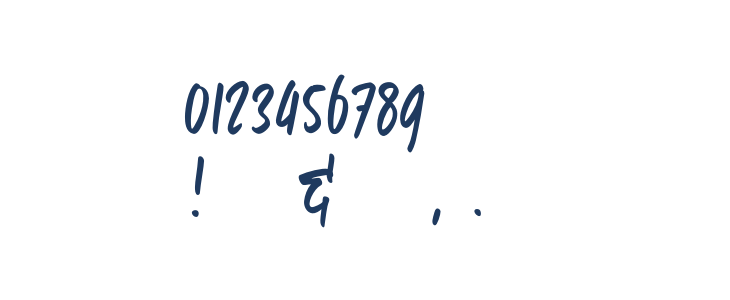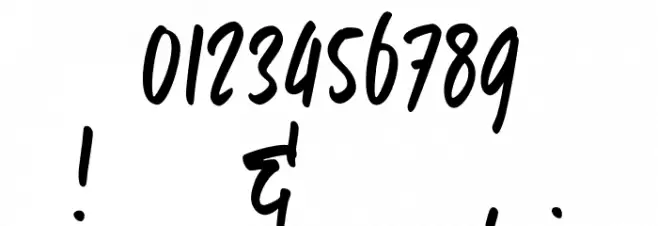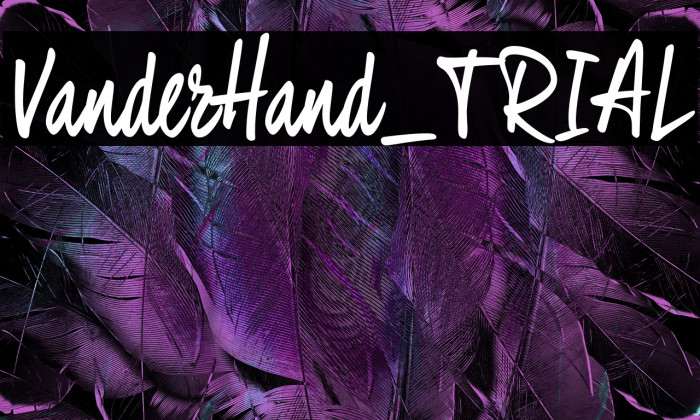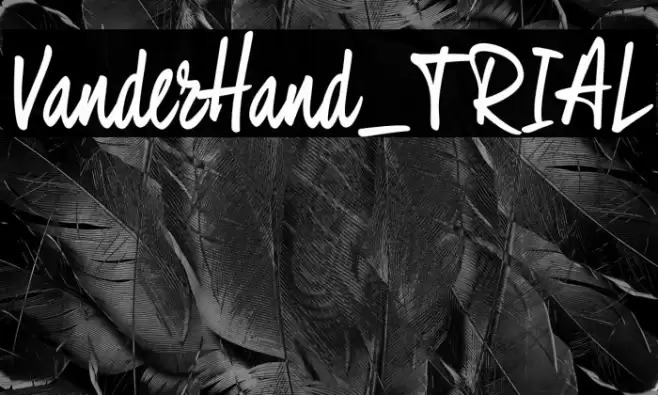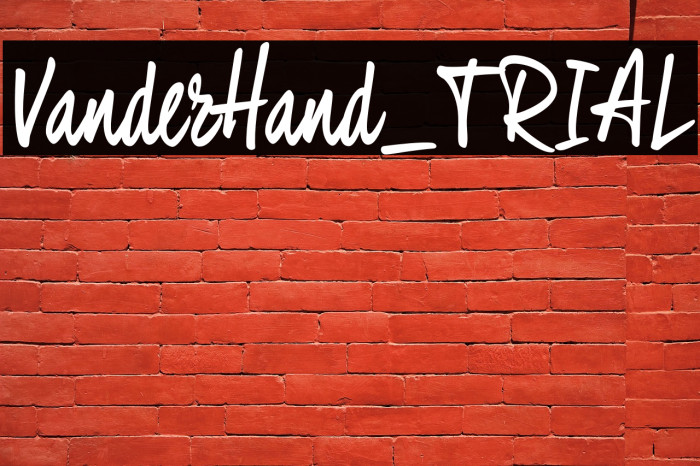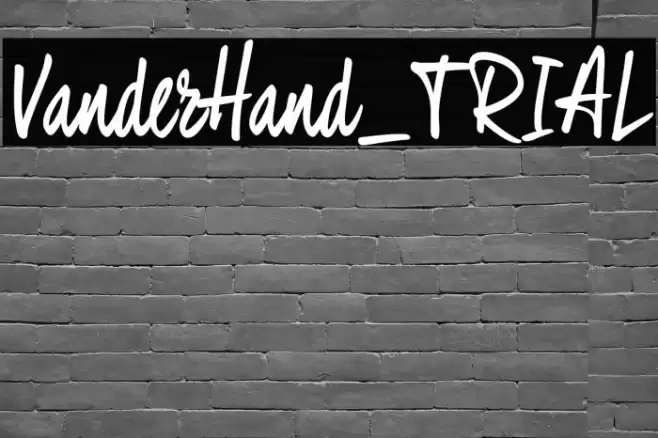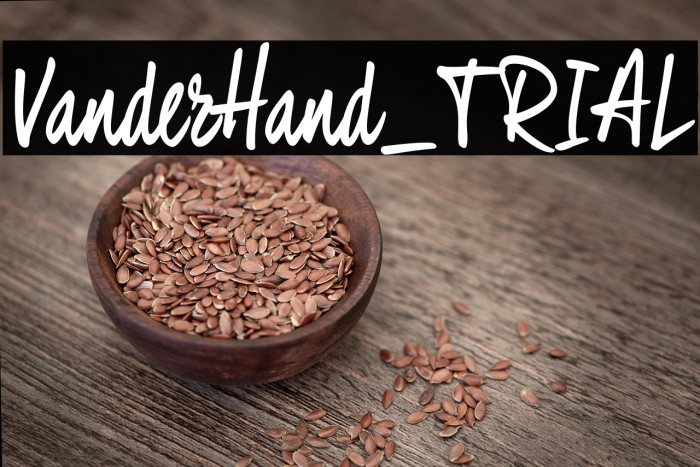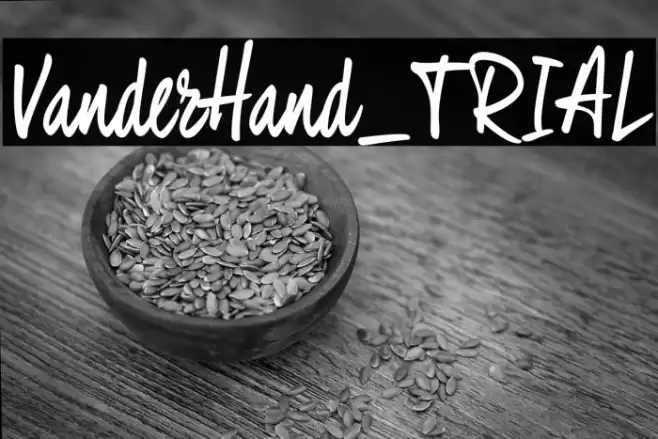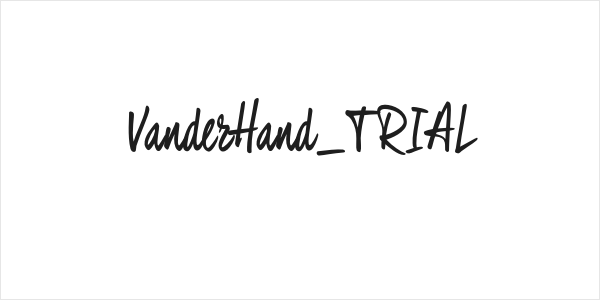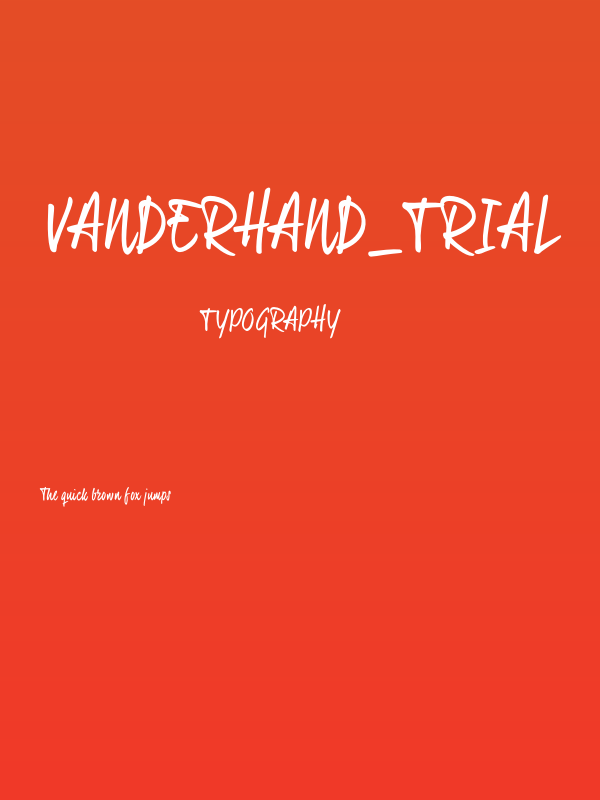
VanderHand_TRIAL Font
VanderHand_TRIAL Description
This font exudes a lively and dynamic handwritten style, characterized by its fluid and cursive strokes. The uppercase letters are bold and slightly slanted, giving a sense of movement and energy. The lowercase letters maintain a consistent flow, with some letters extending below the baseline, adding to its casual and informal appearance. The numerals are clear and legible, matching the overall playful aesthetic. Special characters are integrated seamlessly, maintaining the font's cohesive look. This font is perfect for projects that require a personal touch or a creative flair.